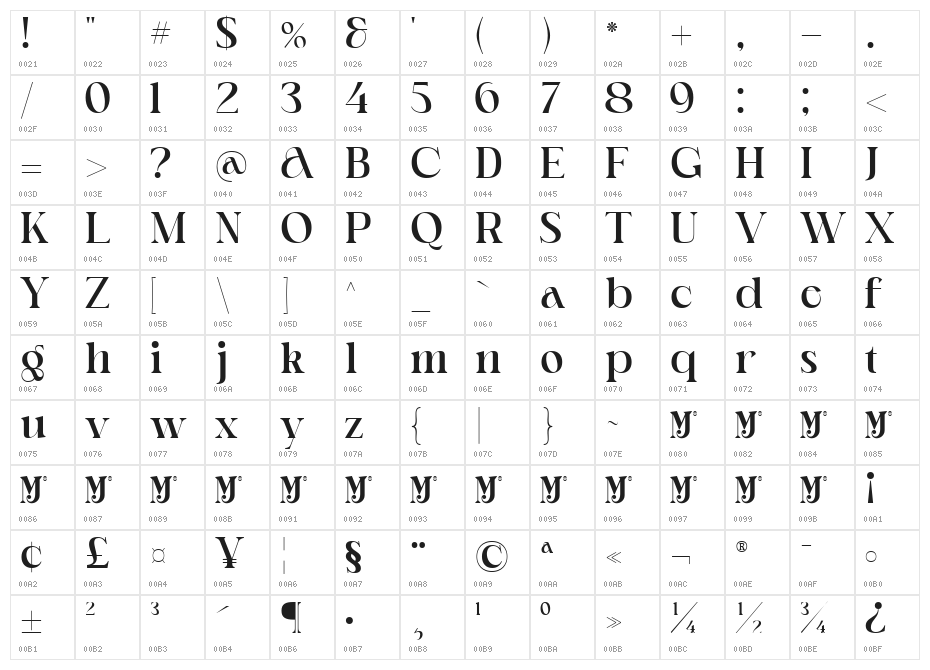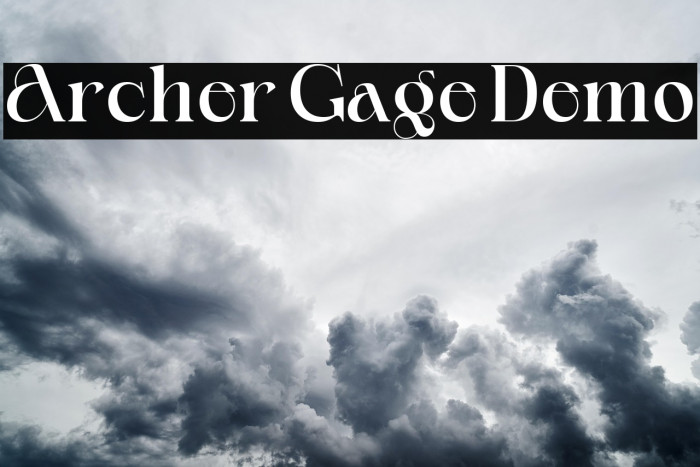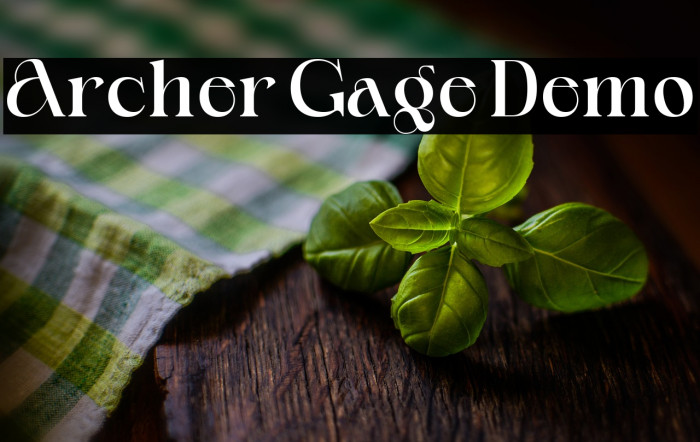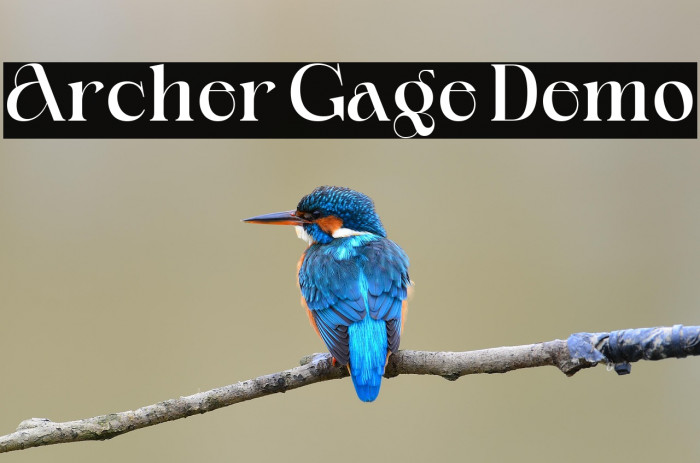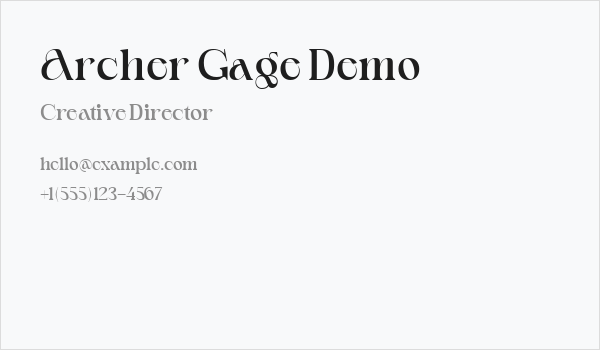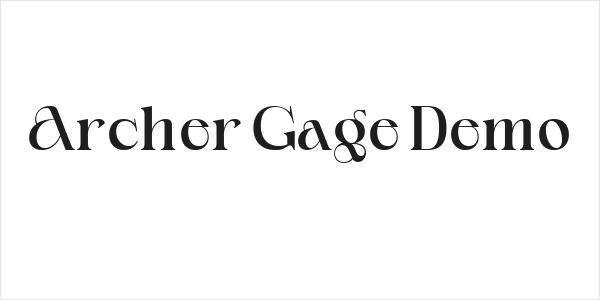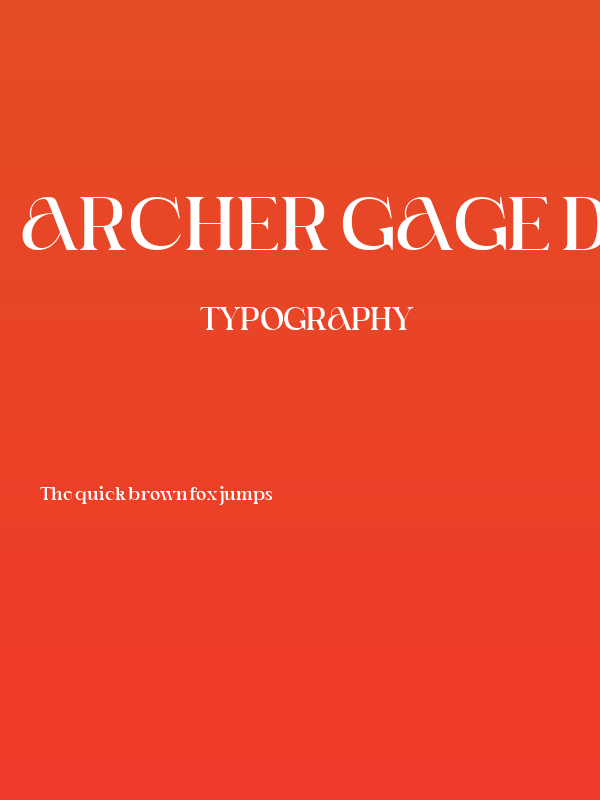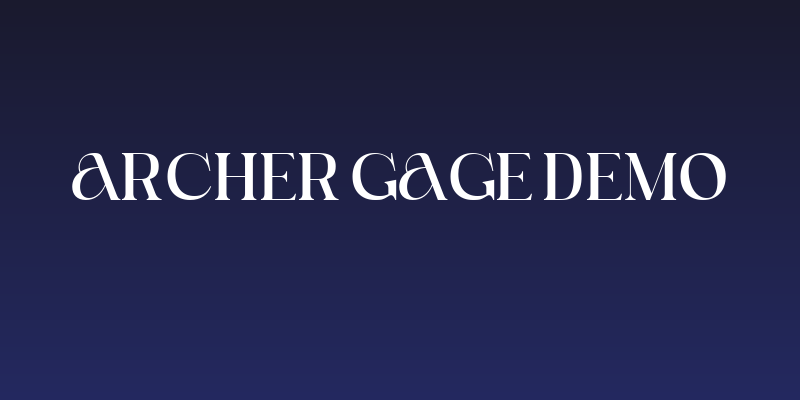
Archer Gage Demo Font
Archer Gage Demo Description
This typeface features a sophisticated and elegant design with a modern twist. The uppercase letters exhibit a refined serif style, characterized by sharp, clean lines and subtle curves that add a touch of sophistication. The lowercase letters maintain a consistent style, offering a harmonious blend of traditional and contemporary elements. The numerals are distinct and easy to read, with a balanced proportion that complements the overall aesthetic. Special characters are thoughtfully designed, ensuring versatility across various applications. This font's high contrast in stroke thickness enhances its readability and visual appeal, making it suitable for both digital and print media.
| Use Case | Headlines, Logos, Editorial design |
| Proposed Projects | Ideal for luxury branding, editorial design, wedding invitations, and high-end product packaging. |